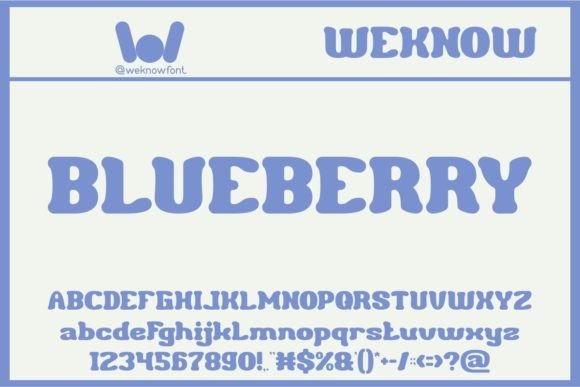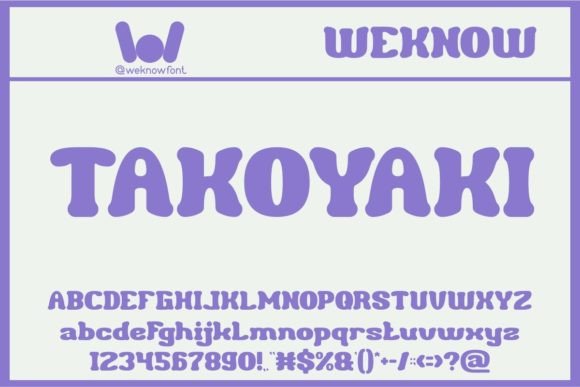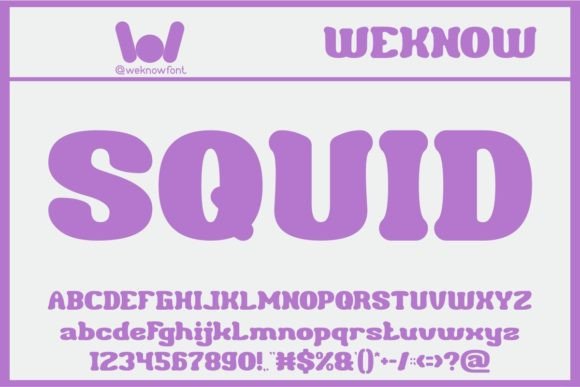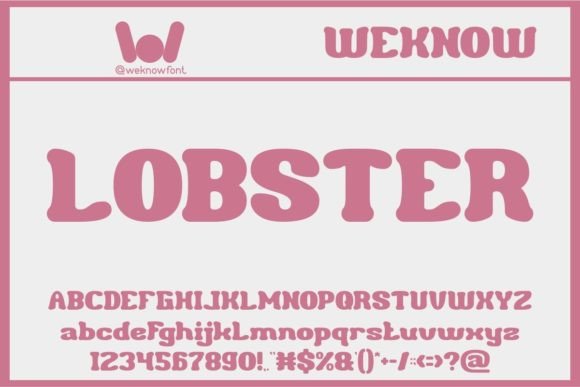
Introduction to Seafood Font
Imagine you’re a designer, and you’re working on a project that needs a touch of elegance and sophistication. You’re browsing through your favorite design resources, searching for the perfect font to make your creative project stand out. And then, you stumble upon it – the Seafood Font. Its sleek lines, modern feel, and high-quality design make it the perfect addition to any project.
With its transparent background and beautiful typography, the Seafood Font is a game-changer for designers. Not only is it free to download, but it’s also a valuable resource that can elevate your designs to the next level. Whether you’re working on a website, a brochure, or a social media campaign, the Seafood Font is sure to impress. So, what are you waiting for? Add it to your design arsenal and get ready to amaze your clients and audience.
Key Features of Seafood Font
- High-quality design for creative projects, including menus, labels, and advertisements for seafood restaurants and businesses.
- Unique seafood-inspired characters and graphics make it an ideal font for seafood-themed designs, menus, and packaging.
- Perfect for designers and businesses looking for a high-quality, free design resource for their creative projects.
Honest Review: Seafood Font
As a designer, I’m always on the lookout for unique and high-quality design resources to elevate my creative projects. I recently stumbled upon the Seafood Font, and I must say, it’s been a game-changer for my latest design project.
What works well: ✨ The Seafood Font is incredibly versatile and can be used for a wide range of designs, from restaurant menus to packaging labels. The font is available for free download, which is a massive plus for designers on a budget. I also appreciate the transparent background option, which makes it easy to layer the font with other design elements.
What’s not so great: ⚠️ While the font is high-quality, it does come with some limitations. For example, it’s not suitable for large-scale text or headlines, and it can be a bit difficult to read in certain fonts sizes. Additionally, the font is not customizable, which might be a drawback for some designers.
Overall, I’m really impressed with the Seafood Font. It’s a fantastic design resource that’s perfect for creative projects that require a touch of whimsy and playfulness. If you’re looking for a unique and high-quality font, I highly recommend checking it out.
Seafood Font
The Seafood Font is a versatile design resource ideal for creative projects. It is available for free download with a transparent background, making it perfect for various design applications.
Common Use Cases for Seafood Font
The Seafood Font is commonly used in various design projects, including restaurant menus, seafood packaging, and marine-themed designs. Its high-quality design makes it perfect for creating professional-looking designs.